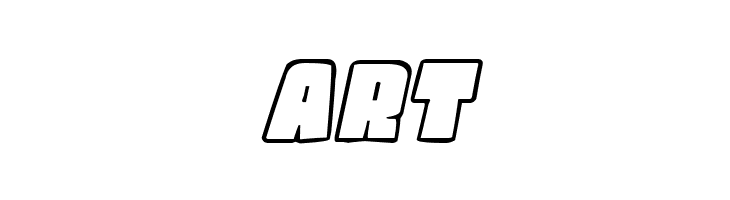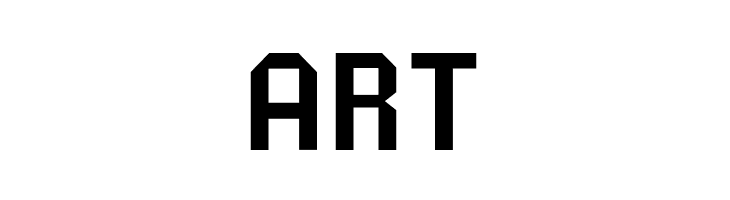
A bold, playful, and three-dimensional font with a comic-style flair.
A sophisticated, cursive font with elegant loops and swirls.
A playful, bold, and handwritten-style font with a quirky charm.
A flowing, cursive font with elegant, sweeping lines and a handwritten appearance.
A whimsical and flowing script font with elegant, fluid letterforms.
A bold, geometric font with strong, angular lines and a modern aesthetic.
A bold, geometric font with a strong, industrial feel.
A playful, elegant script font with a handwritten feel and bold strokes.
A bold, expressive script font with a playful, handwritten style.